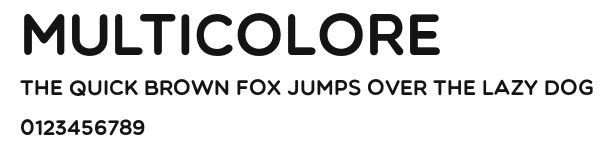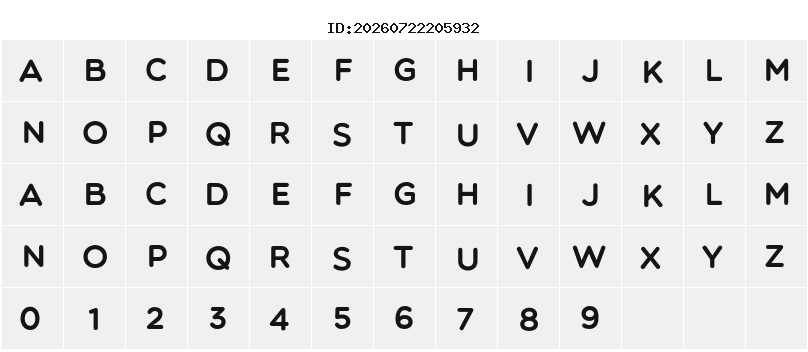
Multicolore .otf
• Font Name: Multicolore
• Designer: Ivan Filipov
About Multicolore .otf
Multicolore .otf is a modern, elegant sans-serif font designed for ultimate readability and visual harmony. Perfect for branding, headlines, web design, and print materials.